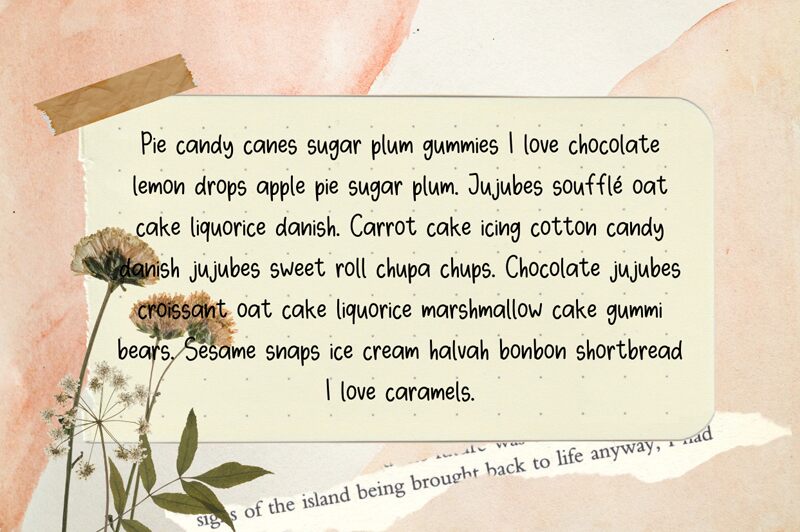
Craftsy Regular
Craftsy, a captivating handwritten font by Syifa Fauzia Zazuli, exudes a charming, organic allure. Its fluid strokes and playful character capture a sense of authenticity and warmth, lending a touch of artisanal elegance to any design. The font's natural, expressive qualities evoke a sense of handcrafted individuality, making it a captivating choice for projects seeking a personalized, heartfelt aesthetic.
This versatile font can elevate a wide range of applications, from branding and packaging to editorial layouts and invitations. Its distinctive character lends itself beautifully to projects that aim to convey a handmade, artisanal feel, infusing them with a touch of whimsical personality.